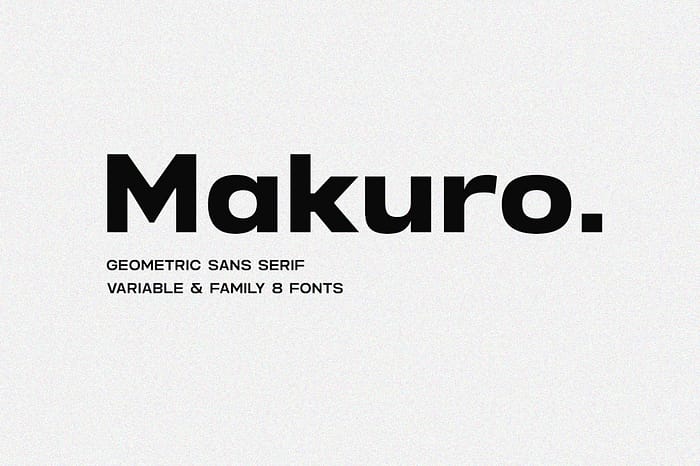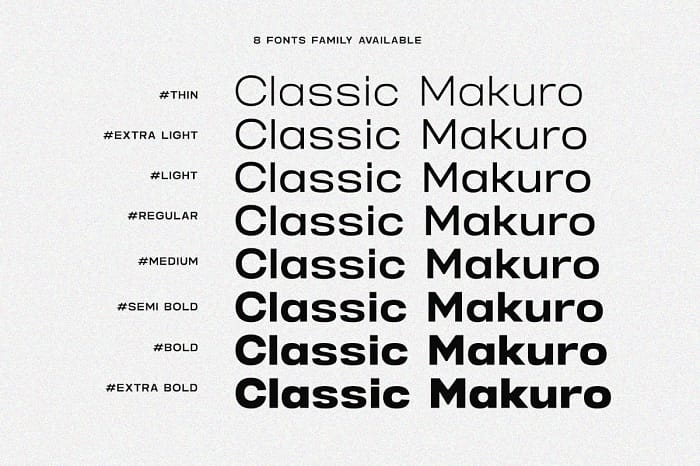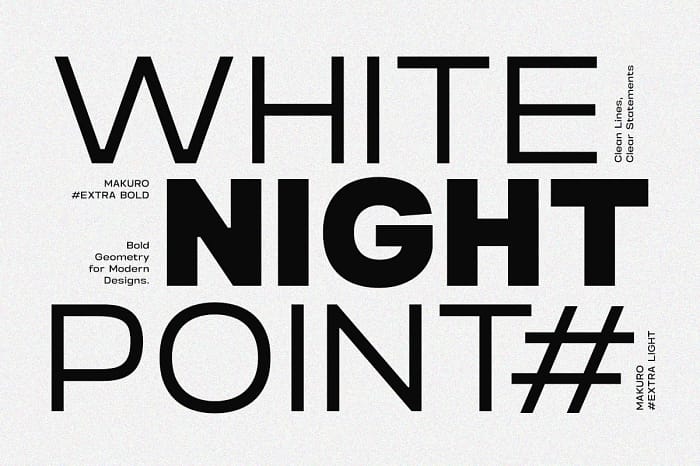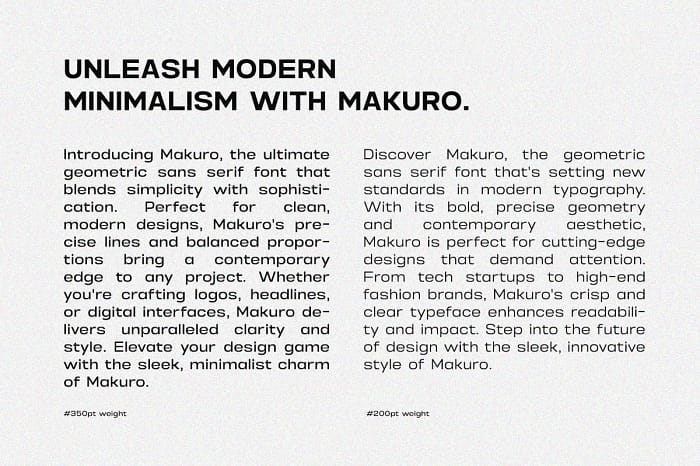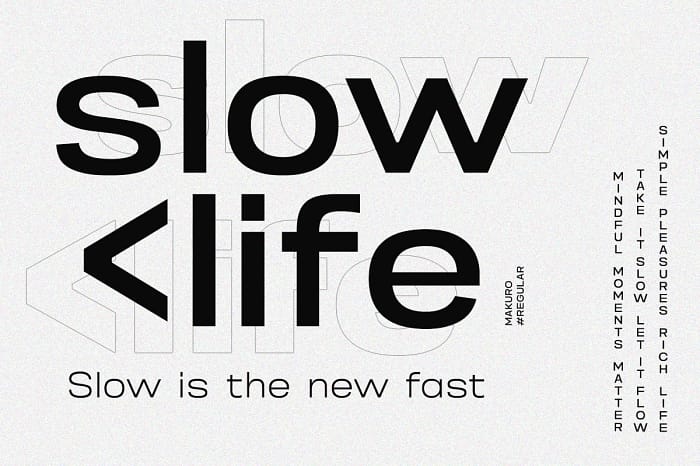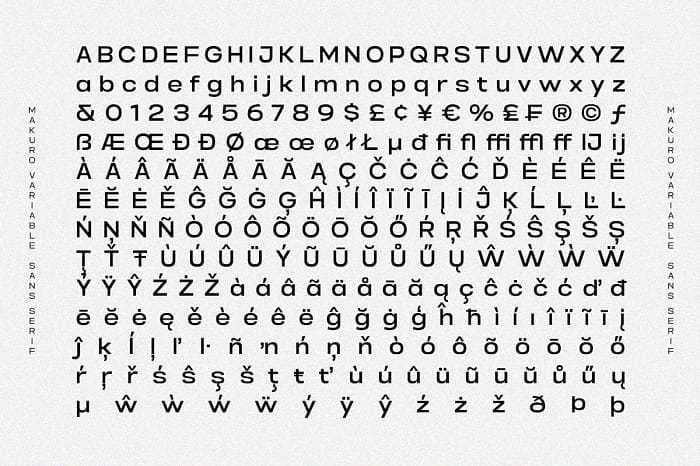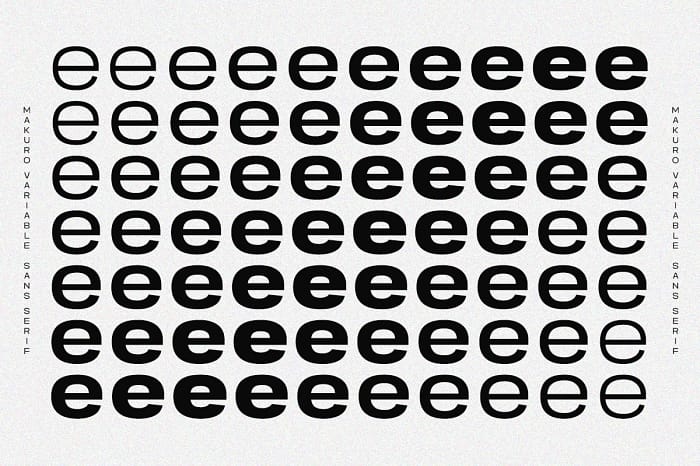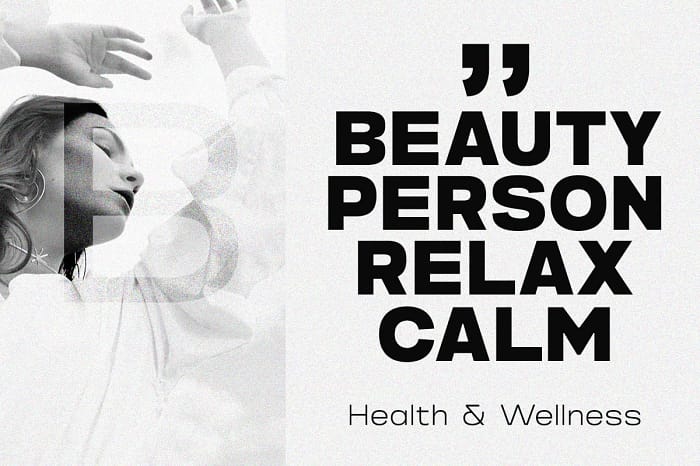
Introducing “Makuro”, a meticulously crafted variable font family that embodies the essence of modern design with its clean, geometric sans-serif style. Designed for versatility and functionality, Makuro seamlessly adapts to a wide range of design projects, from bold headlines to elegant body text.
Key Features:
- Variable Font: Makuro offers full control over weight and width, allowing you to fine-tune your typography with precision. Create a perfect match for any design, whether it’s a minimalist layout or a dynamic composition.
- Geometric Sans-Serif: With its clean lines and balanced proportions, Makuro exudes a sense of clarity and sophistication. It’s a perfect choice for branding, editorial design, web, and user interfaces. Extensive Family: Makuro comes in multiple weights and styles, offering a comprehensive toolkit for diverse design needs. From Ultra Light to Black, and everything in between, you’ll find the right tone for any project.
- Language Support: Extensive language coverage ensures that Makuro can communicate your message globally, with support for multiple languages and character sets.
- Optimized for Digital and Print: Whether you’re designing for screens or print, Makuro’s sharpness and legibility remain consistent across all mediums.
Elevate your designs with the modern elegance of Makuro, a font family that combines the precision of geometric design with the flexibility of variable font technology. Perfect for designers who demand both beauty and functionality in their work.